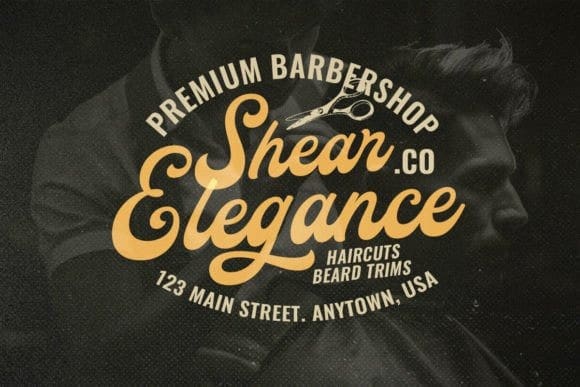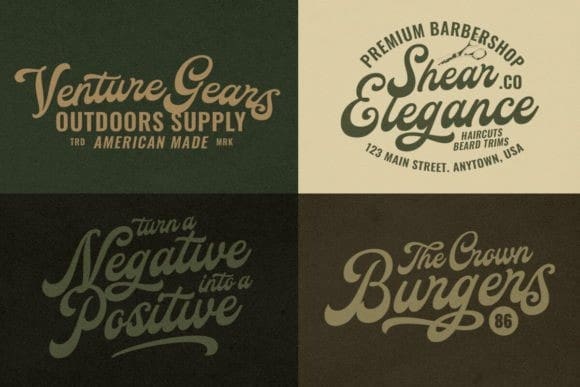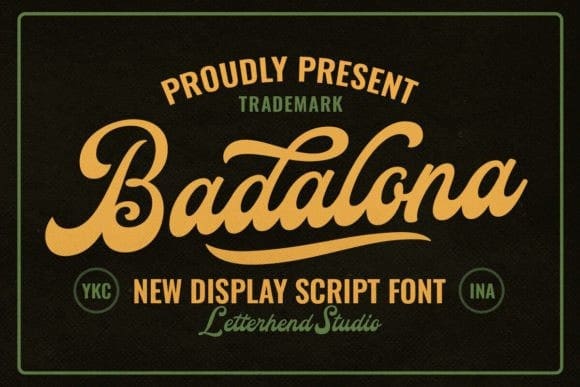
Badalona Retro Font
Badalona Retro Font, a standout display script with a touch of classic looks. This type of font is perfectly made to be applied especially in logos, headlines, signage, and the other various formal forms such as invitations, labels, logos, magazines, books, greeting/wedding cards, packaging, fashion, makeup, stationery, novels, labels or any type of advertising purpose.